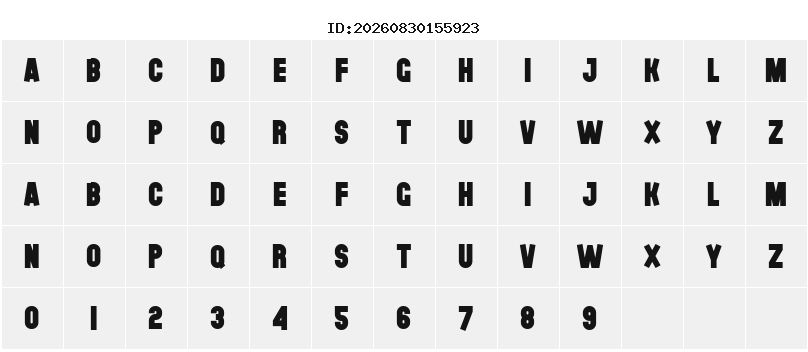
• Font Name: The Black Font
• Designer: Pindarots // Sven Pels
About The Black Font.ttf
The Black Font.ttf is a modern, elegant sans-serif font designed for ultimate readability and visual harmony. Perfect for branding, headlines, web design, and print materials.